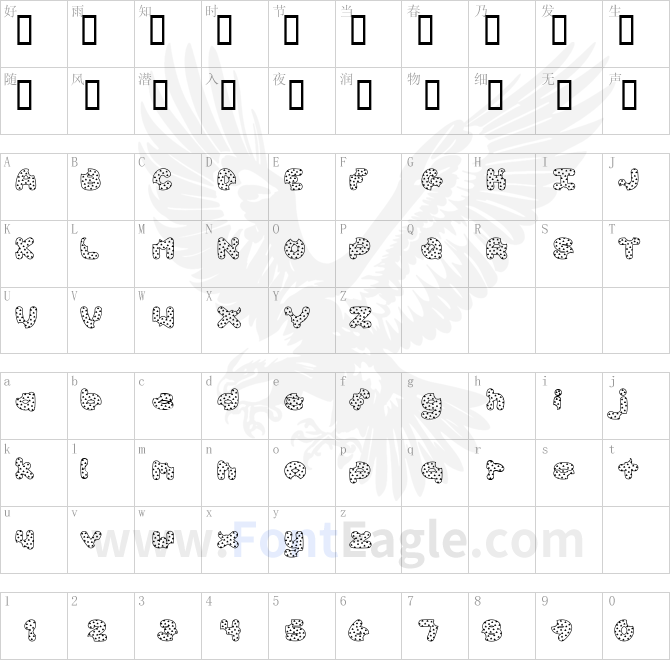
- Font name:Accent Cookie Dough
- Font Subfamily ID:Macromedia Fontographer 4.1 Accent Cookie Dough
- Font Full Name:Accent Cookie Dough
- Font Version:Macromedia Fontographer 4.1 11/12/1998
- Postscript:AccentCookieDough
- Font Copyright:Copyright 1998 Aaron Johnson